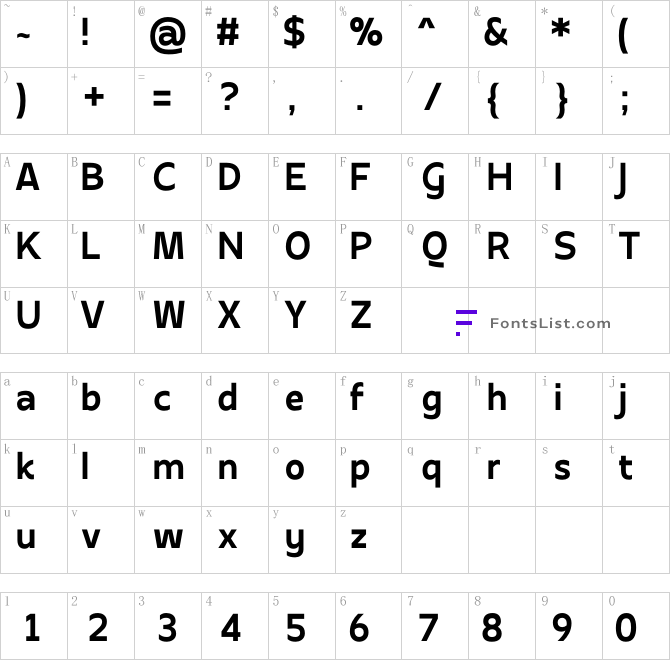
- Font Name:Apricity
Apricity-Bold.otf is a very beautiful artistic font, Apricity-Bold.otf is widely used in the design and printing of various books and pictures,Apricity-Bold.otf has a strong visual impact,Apricity-Bold.otf is a commonly used font in newspapers, magazines and books, and is used in posters, e-commerce Poster design, store design, logo design, font design and other fields.Apricity-Bold.